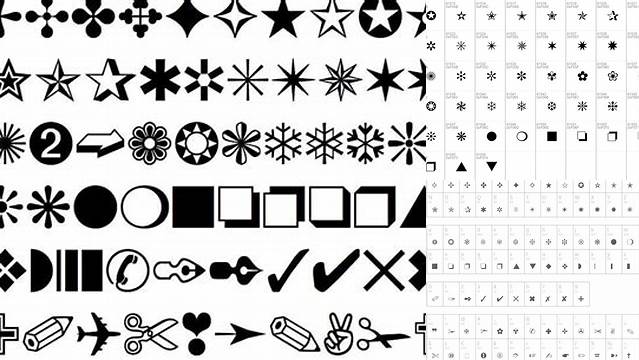
Are you looking to spice up your design projects with unique symbols and glyphs? Look no further! The Zapf Dingbats font is a classic choice, offering a wide array of pictorial characters that can add a touch of whimsy and sophistication to your work. In this article, we'll delve into the history of Zapf Dingbats, explore its various uses, and guide you on how to download it for free and use it effectively.
What are Zapf Dingbats?
Zapf Dingbats, designed by the renowned typographer Hermann Zapf in 1978, is a symbol font that contains a collection of ornaments, icons, and other non-alphanumeric characters. Unlike traditional fonts that display letters and numbers, Zapf Dingbats presents a series of images, such as arrows, stars, hands, and various decorative elements. These symbols can be incredibly useful for adding visual interest to documents, websites, and graphic designs.
The font was initially created for Linotype, and it quickly gained popularity due to its extensive range and artistic quality. It became a staple in the world of typography and graphic design, offering designers a versatile tool for enhancing their creations. The beauty of Zapf Dingbats lies in its ability to convey meaning and add aesthetic value without relying on conventional text. This makes it particularly useful in situations where a visual cue is more effective than words, such as in signage, invitations, and informational materials.
One of the key reasons for its widespread adoption is its compatibility across different platforms and software. Whether you're using Windows, macOS, or Linux, Zapf Dingbats can be easily integrated into your system and used with various applications, including word processors, graphic design software, and web design tools. This cross-platform compatibility ensures that your designs will look consistent, regardless of the environment in which they are viewed.
Moreover, the font's design is meticulously crafted, with each symbol carefully balanced and proportioned. This attention to detail ensures that the symbols are visually appealing and work harmoniously together, creating a cohesive and professional look. The variety of symbols available allows for a great deal of creative expression, making it a valuable asset for designers looking to add a unique touch to their work. From simple bullets and checkmarks to more elaborate floral and geometric designs, Zapf Dingbats offers something for every project.
In summary, Zapf Dingbats is more than just a collection of symbols; it's a versatile and artistic tool that can enhance the visual appeal and effectiveness of your designs. Its rich history, extensive range of characters, and cross-platform compatibility make it a must-have font for any designer looking to elevate their work.
History and Significance of Zapf Dingbats
To truly appreciate the Zapf Dingbats font, it's essential to understand its historical context and the significance it holds in the world of typography. Hermann Zapf, the creator of this iconic font, was a highly respected German typographer and book designer. His contributions to the field are immense, and Zapf Dingbats is just one example of his innovative and artistic approach to typography.
Zapf's career spanned several decades, during which he designed numerous typefaces that are still widely used today. His work is characterized by a deep understanding of letterforms and a commitment to creating fonts that are both beautiful and functional. Zapf Dingbats was a departure from traditional text-based fonts, reflecting his interest in exploring new ways to communicate visually. The font was designed to complement his other typefaces and provide designers with a set of symbols that could be used to enhance their work.
The creation of Zapf Dingbats in 1978 was a significant event in the history of typography. At the time, symbol fonts were relatively uncommon, and Zapf's design stood out for its quality and comprehensiveness. The font quickly gained popularity among designers and publishers, who recognized its potential for adding visual interest and clarity to their documents. It became a standard font on many computer systems, ensuring its widespread availability and use.
One of the key factors contributing to the font's success was its versatility. The symbols included in Zapf Dingbats range from simple bullets and arrows to more complex and decorative elements. This wide variety allowed designers to use the font in a variety of contexts, from business documents to artistic creations. The font's symbols could be used to highlight important information, add visual flair to a page, or create unique logos and icons.
Moreover, Zapf Dingbats played a crucial role in the development of digital typography. As computers became more prevalent in the design industry, the need for digital fonts increased. Zapf Dingbats was one of the first symbol fonts to be digitized, making it accessible to a new generation of designers. Its inclusion in popular software programs helped to solidify its status as a standard font and ensured its continued use for many years to come.
The Zapf Dingbats font is a timeless and versatile resource for designers and anyone looking to add a unique visual flair to their projects. From its historical roots to its practical applications, this font offers a wealth of creative possibilities. By understanding its history, learning how to download it for free, and exploring its various uses, you can unlock the full potential of Zapf Dingbats and elevate your designs to the next level. So go ahead, experiment with this iconic font, and let your creativity shine!